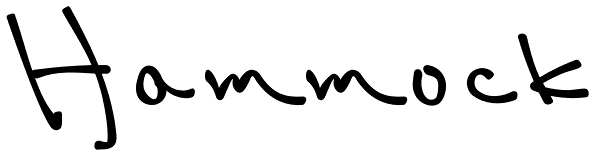
Hammock
Hammock is a chilled and simple handwritten typeface. Having the combination of the large capital letters and the small lowercase enable you to play with the font uniquely and flexibly. Also, its left-slanted letters give a bit of special look to...